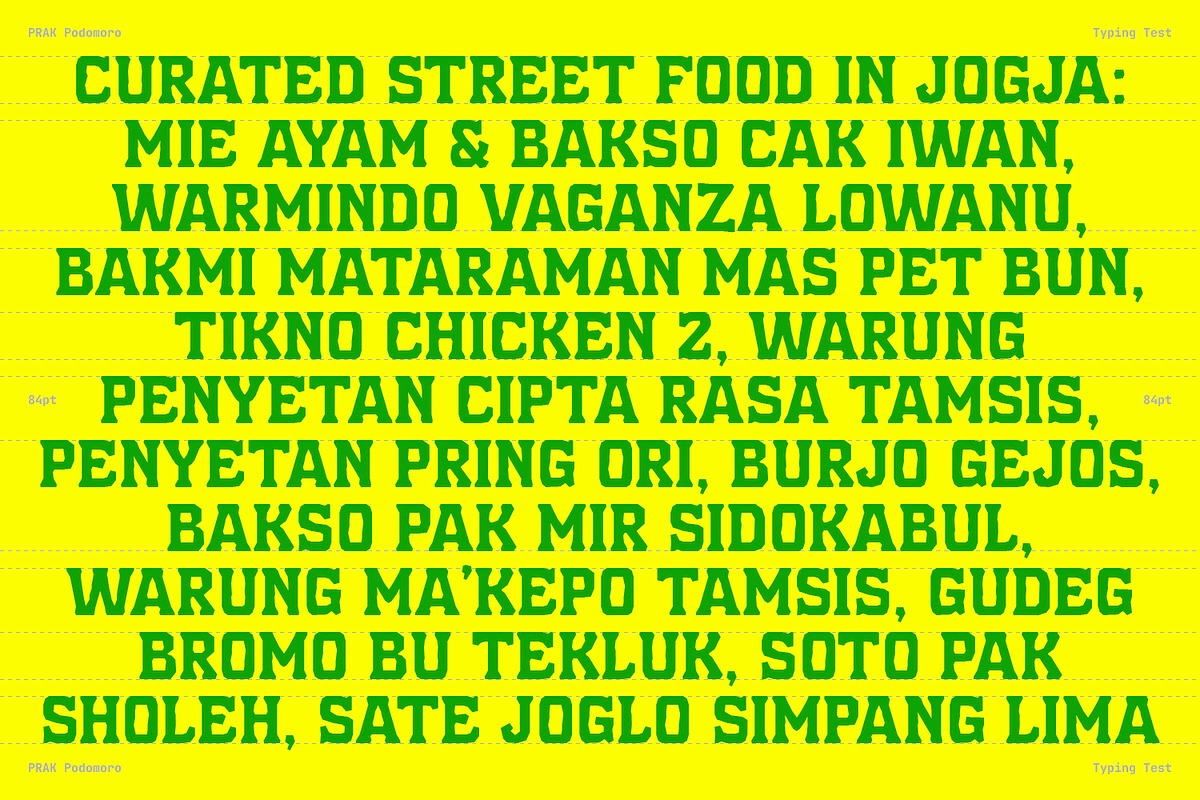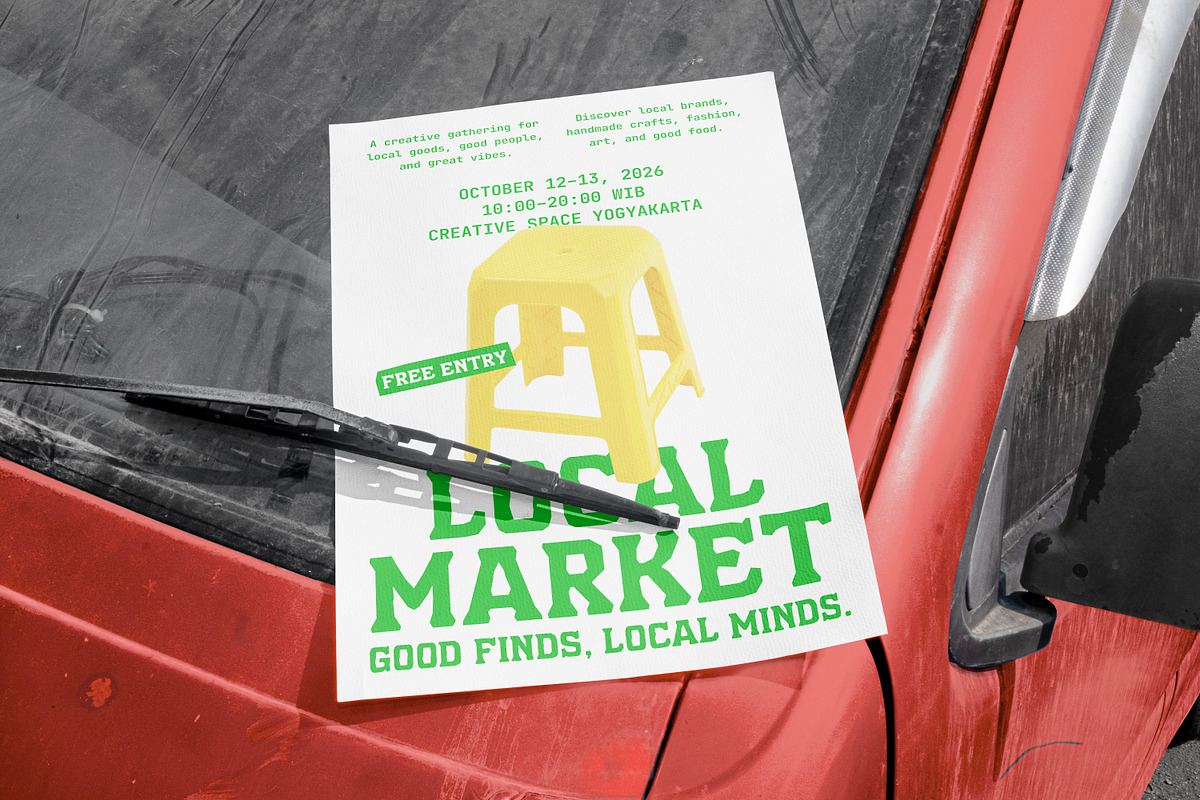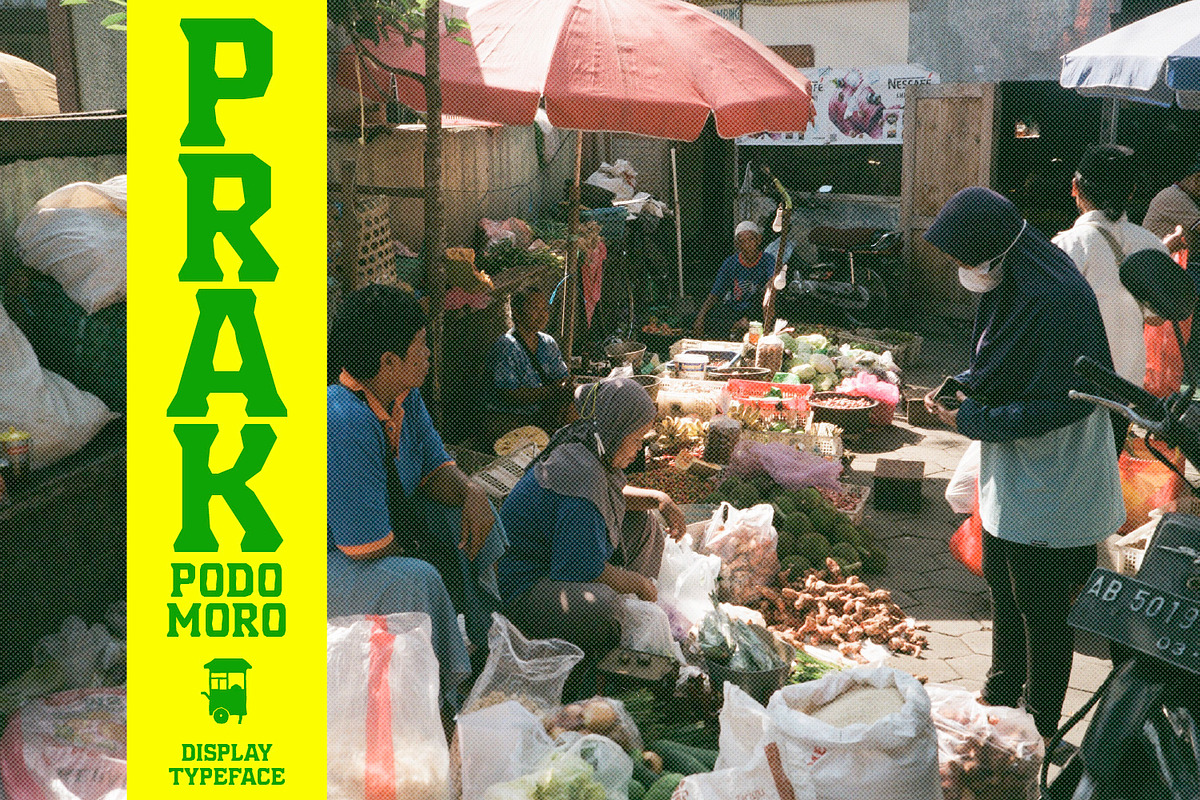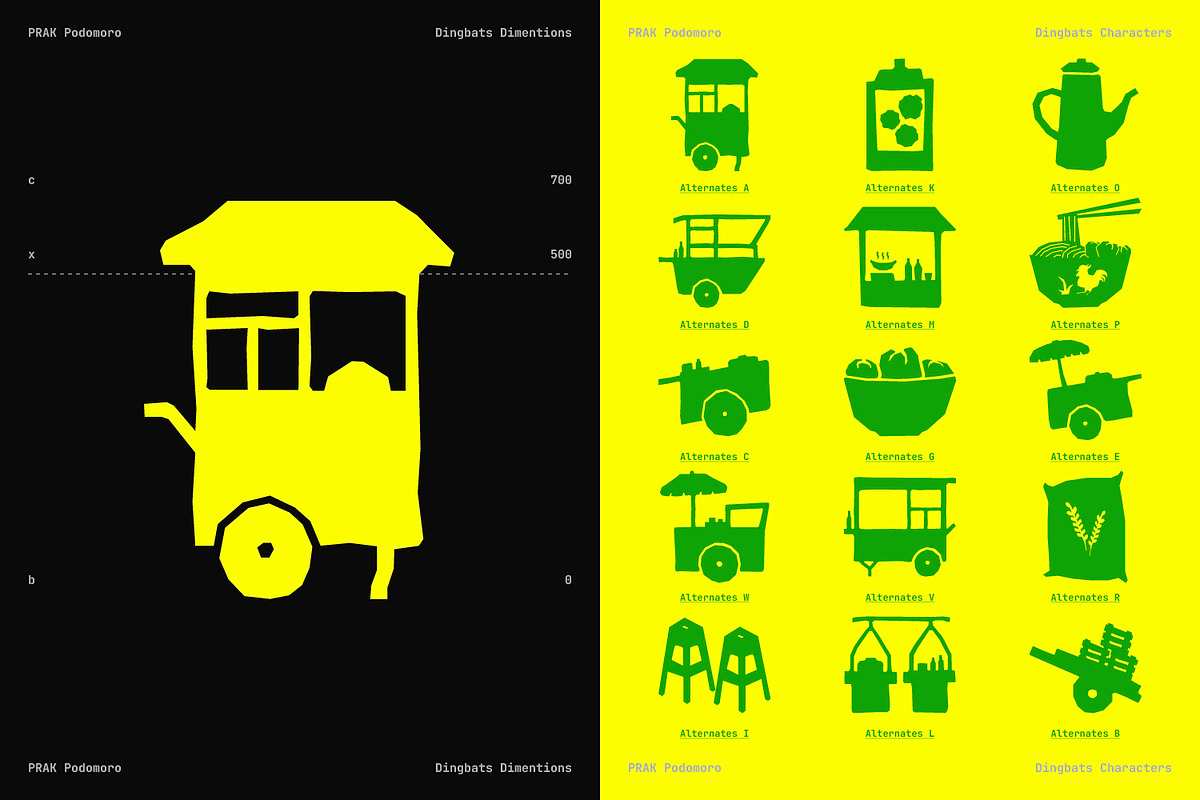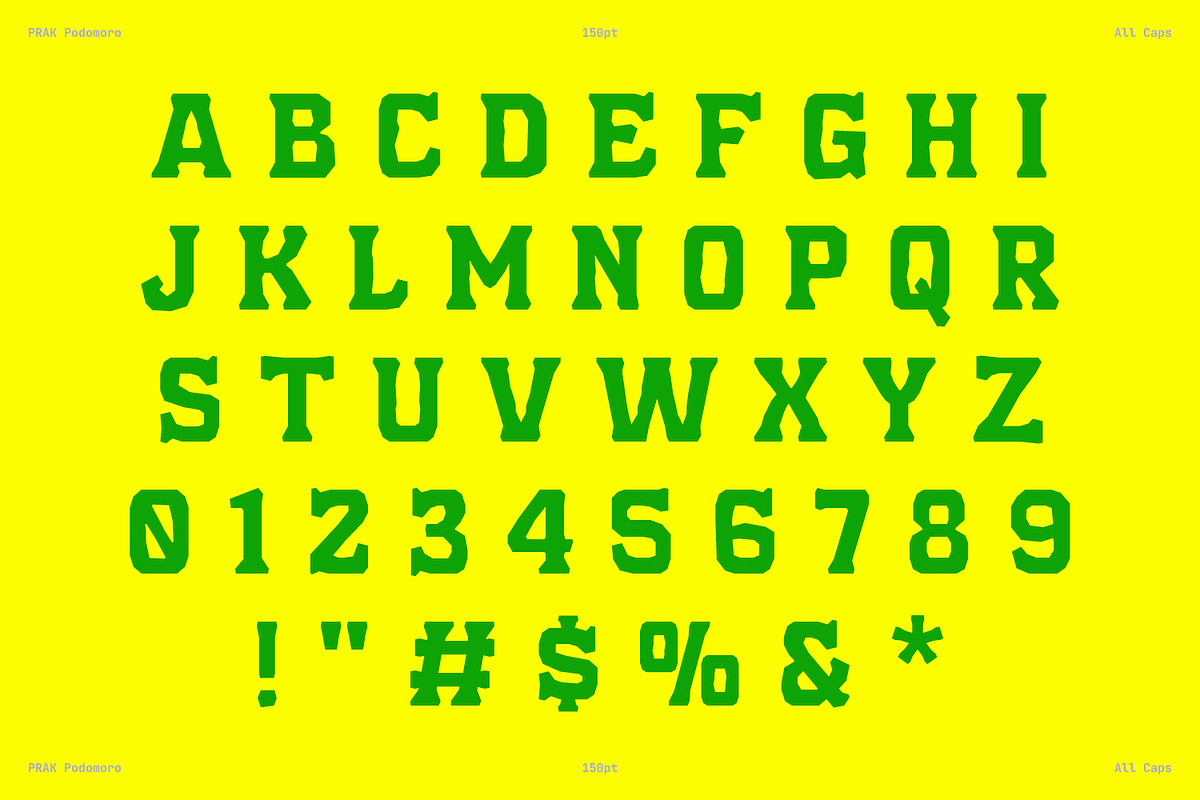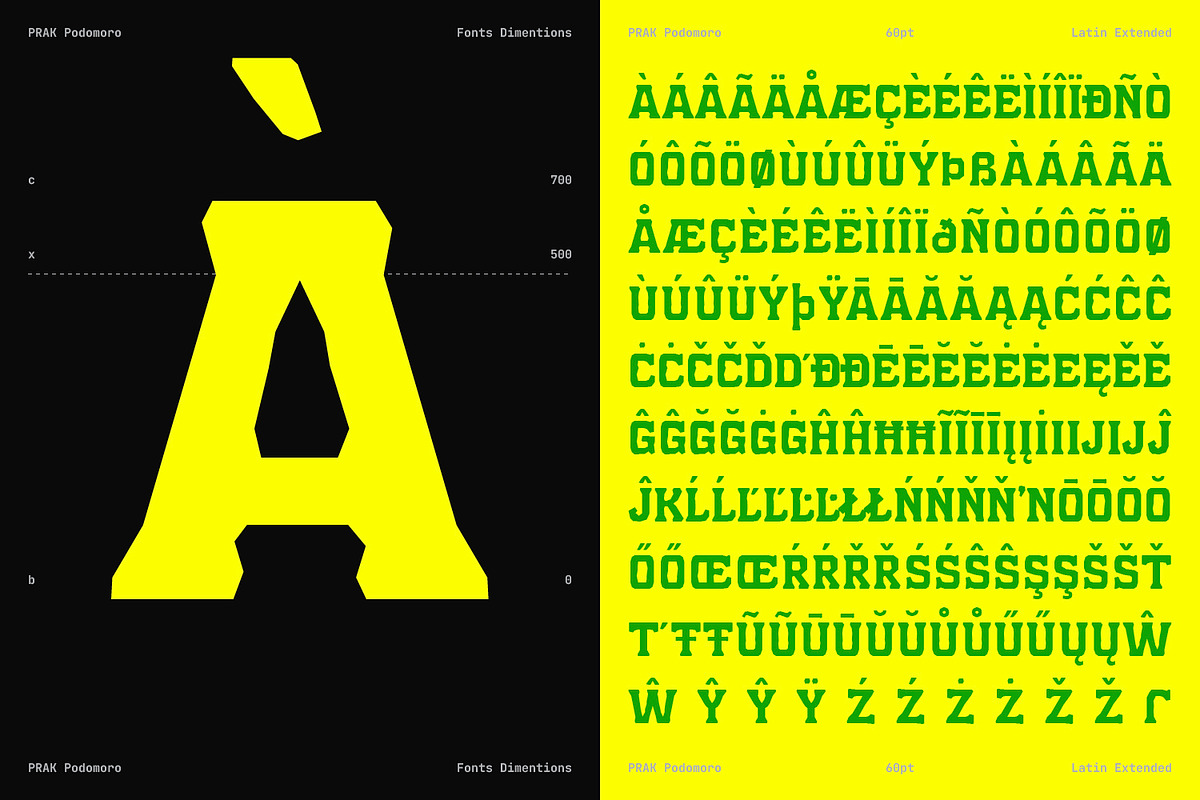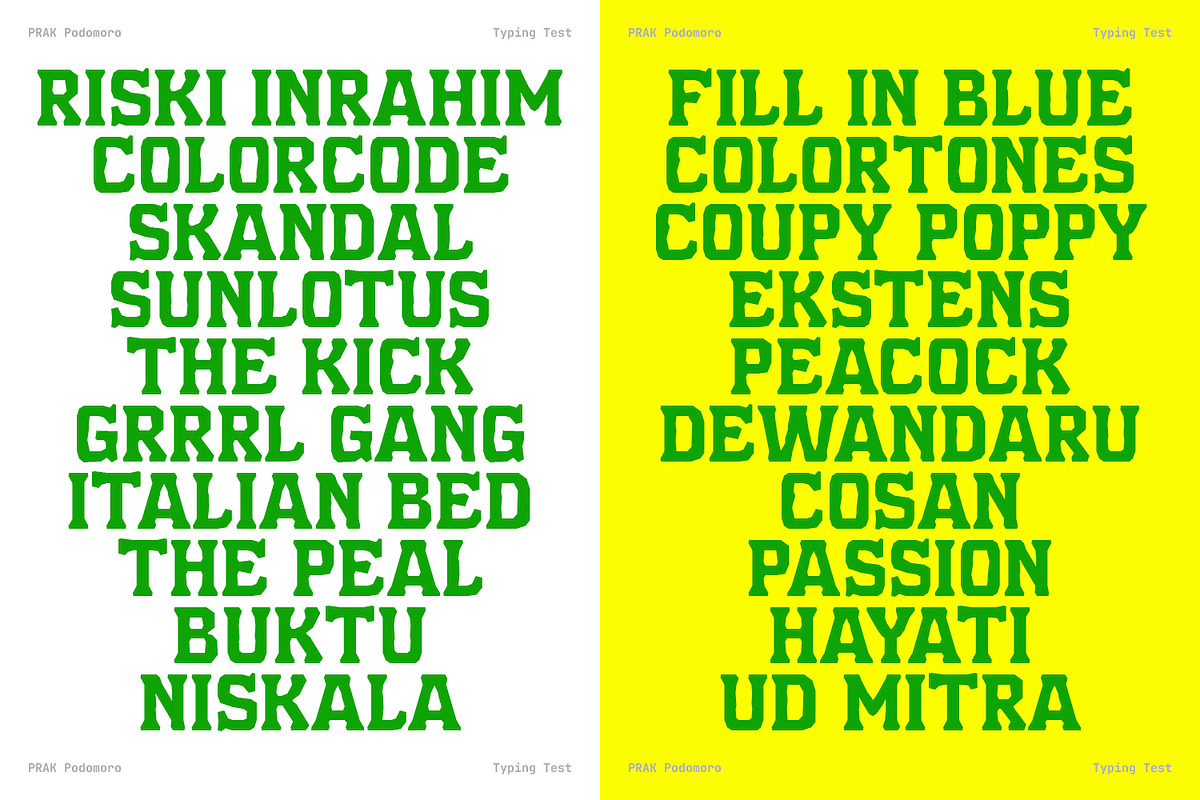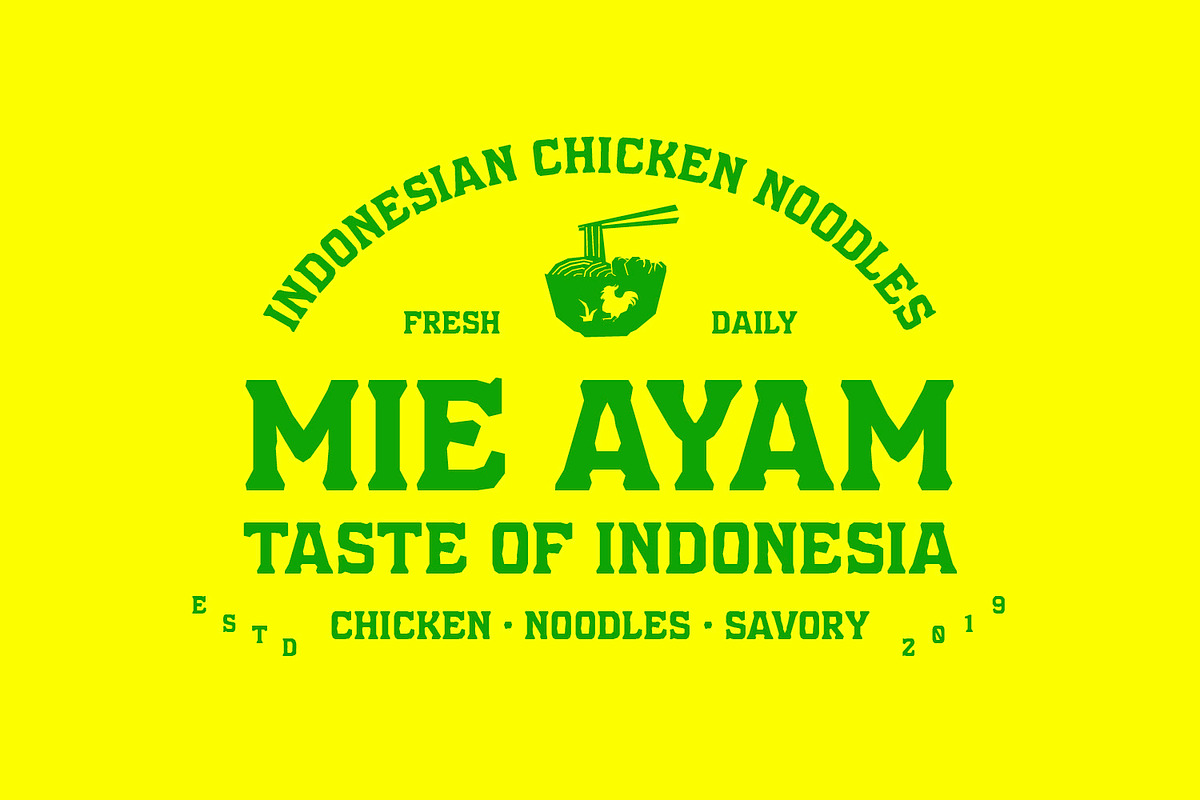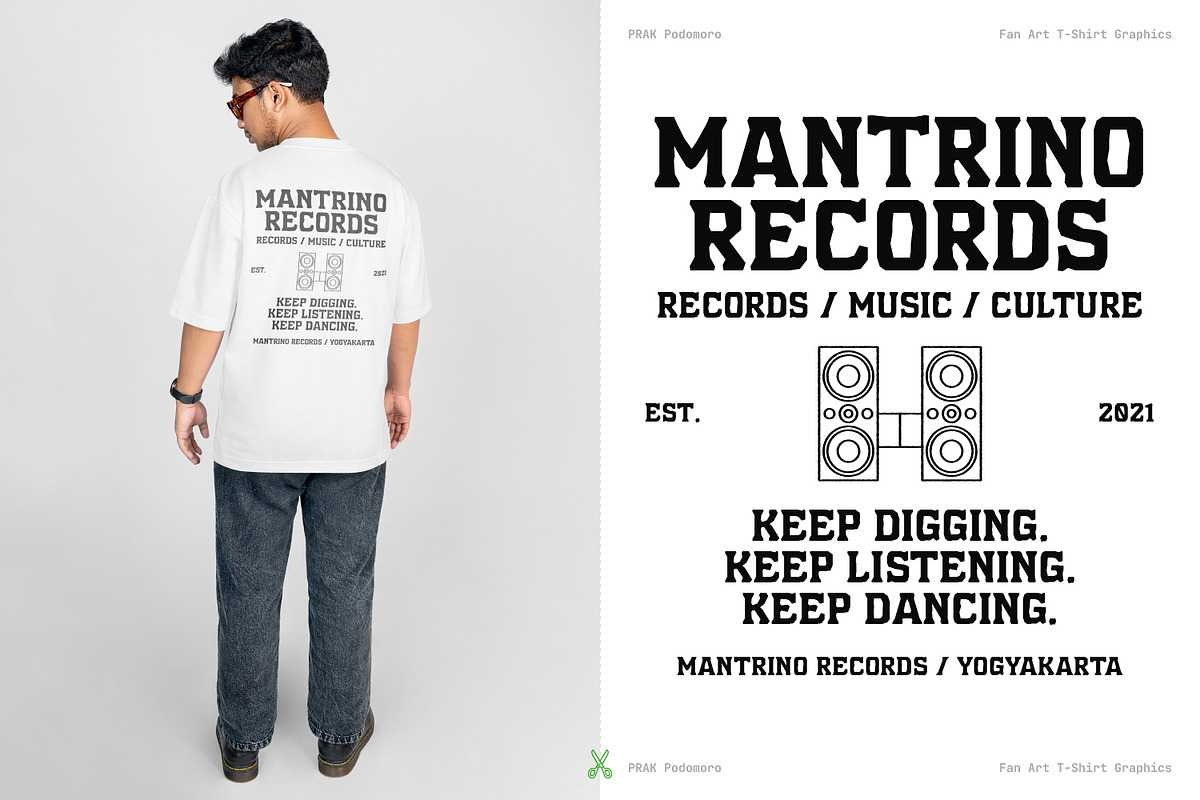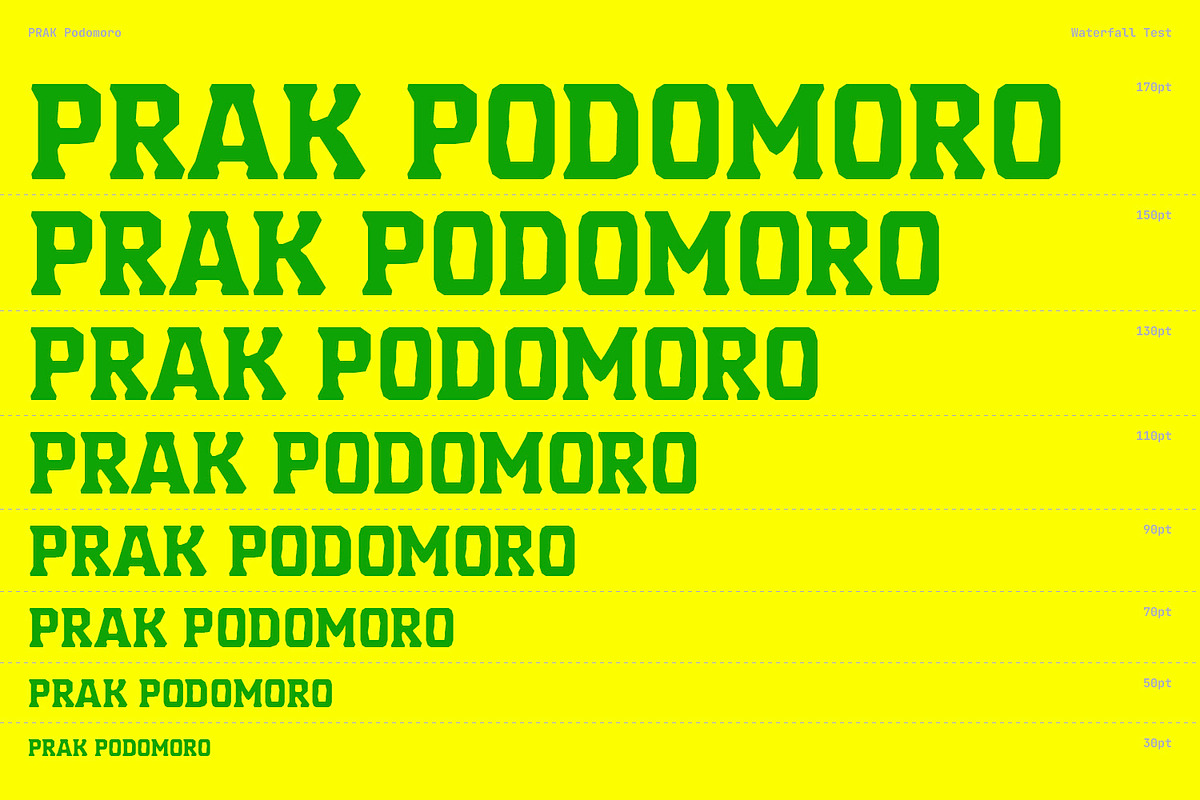
PRAK Podomoro Hand-Cut Display Font
PRAK Podomoro — Hand-Cut Display Typeface
PRAK Podomoro is a bold display typeface inspired by the hand-cut sticker lettering found on street food carts at Beringharjo Market, Yogyakarta. Its sharp angles, uneven cuts, and distinctive shapes capture the raw and human character of handmade signage.
Inspired by the spontaneous imperfections of manually cut stickers, PRAK Podomoro transforms those visual traits into a consistent typographic system. The result is a typeface that feels bold, playful, raw, and distinctly human—bringing the character of vernacular street signage into contemporary design.
444 glyphs
All Caps
Dingbat characters included
Bold and angular display style
Designed with distinctive cut-inspired details
PRAK Podomoro works best for projects that need a strong and expressive visual voice, such as:
Posters & headlines
Branding & logos
Food & beverage identity
Packaging design
Streetwear & apparel
Editorial design
Album & music artwork
Signage
Campaign & event visuals
Use PRAK Podomoro when you want your typography to feel raw, energetic, unconventional, and handmade.
PRAK Podomoro — shaped by imperfect cuts, made for bold ideas.